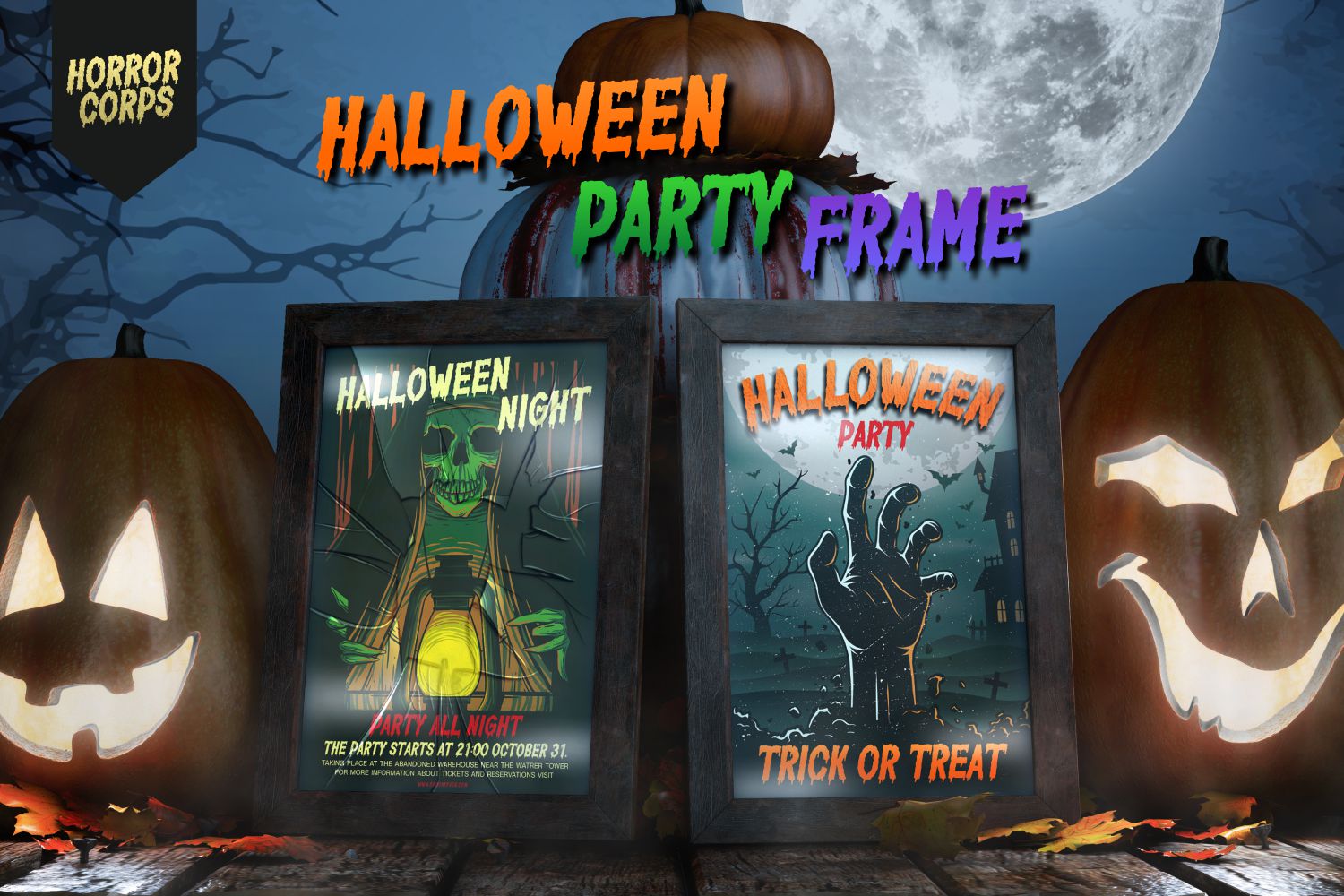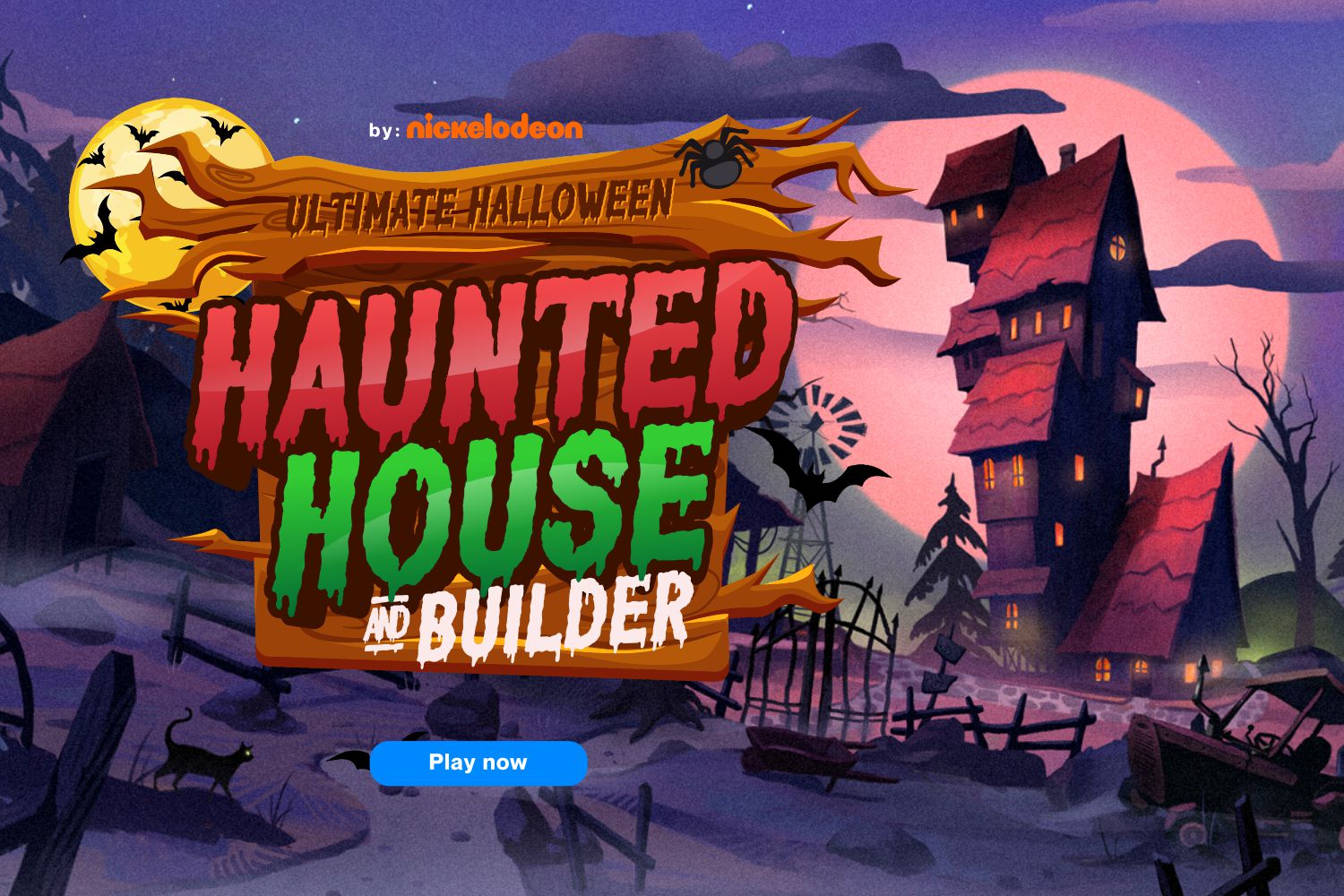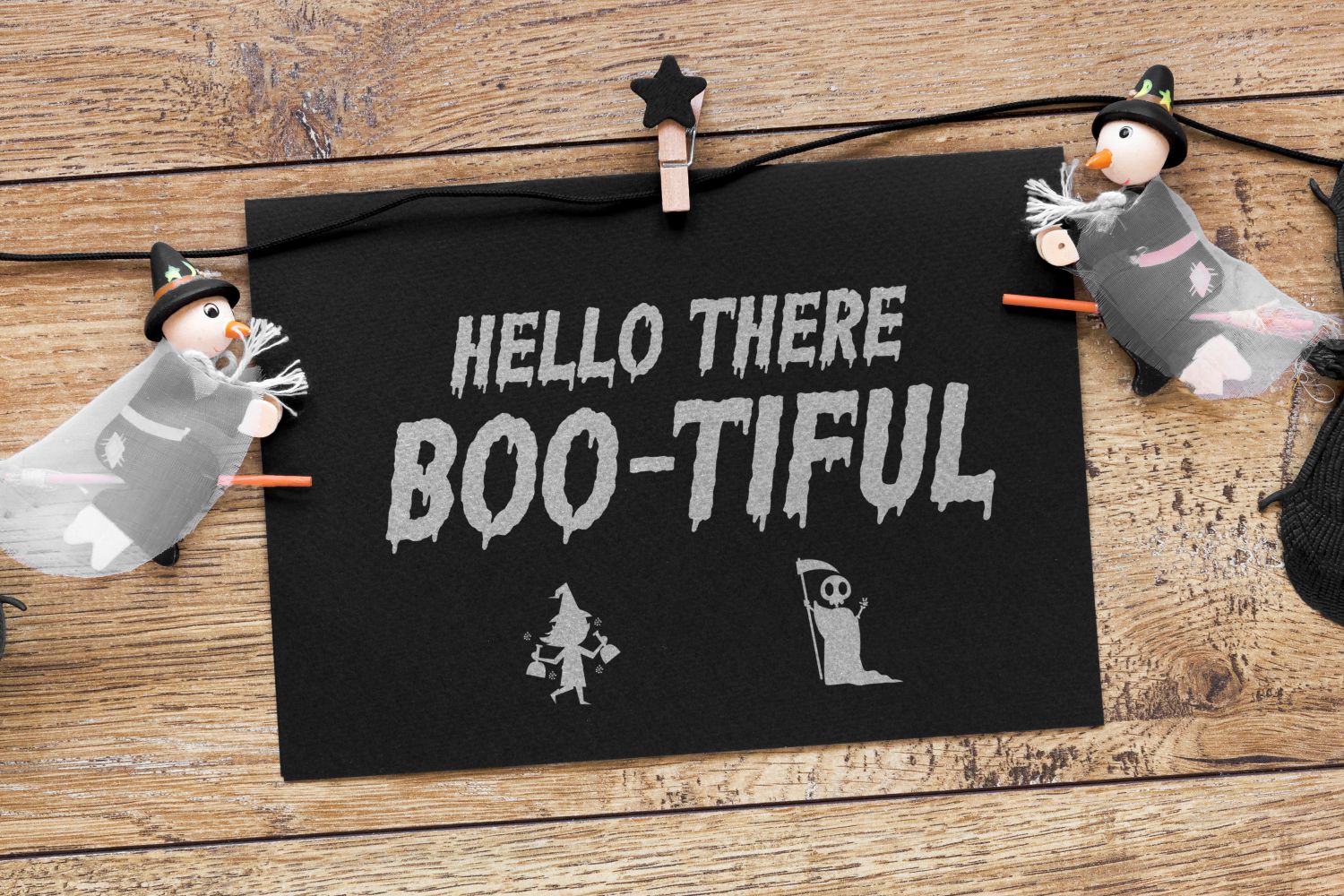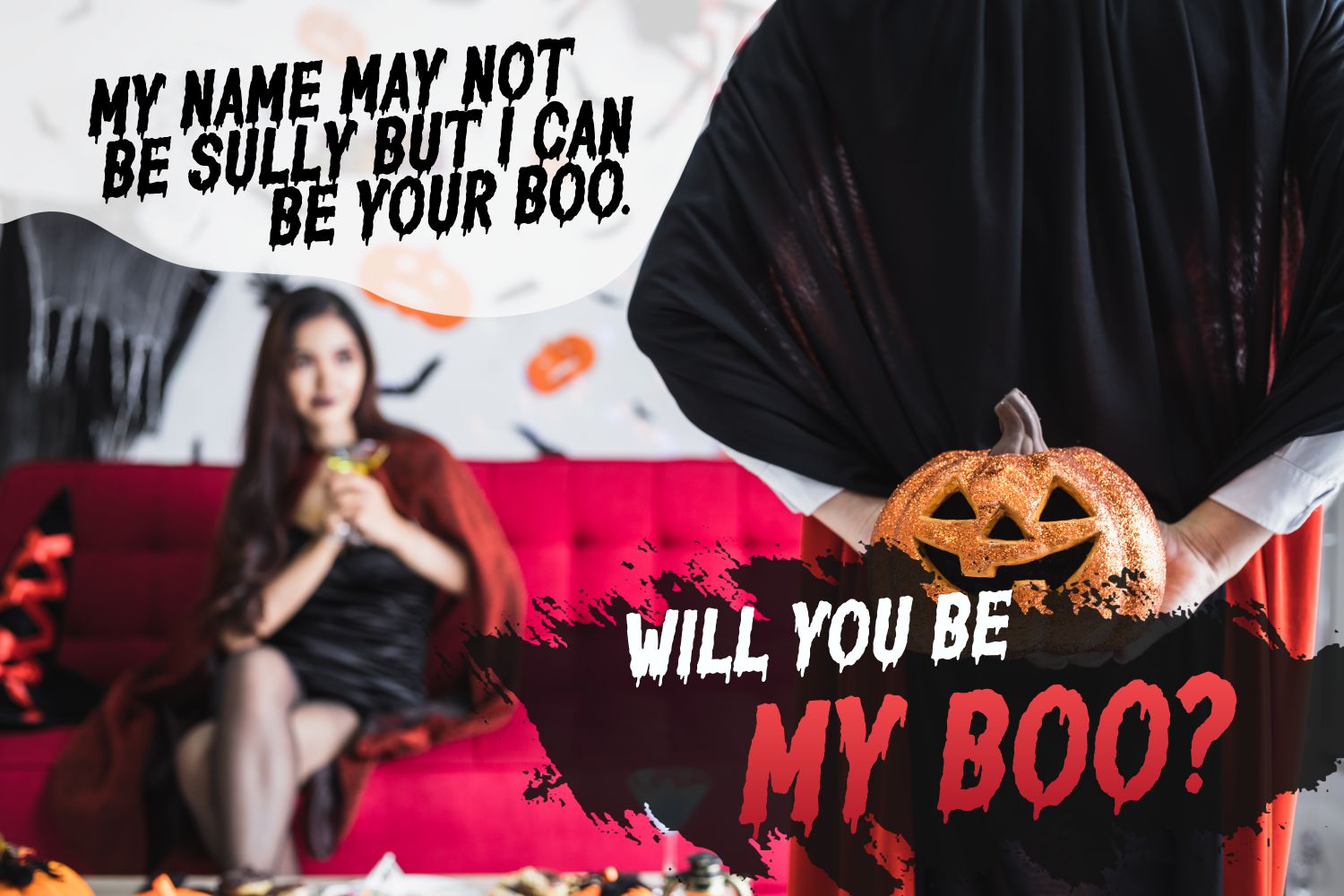
Horror Corps Font
Horror Corps Display Font
It’s an interesting looking and a bit spooky display font. Add it to each of your Halloween designs and notice how they come alive!